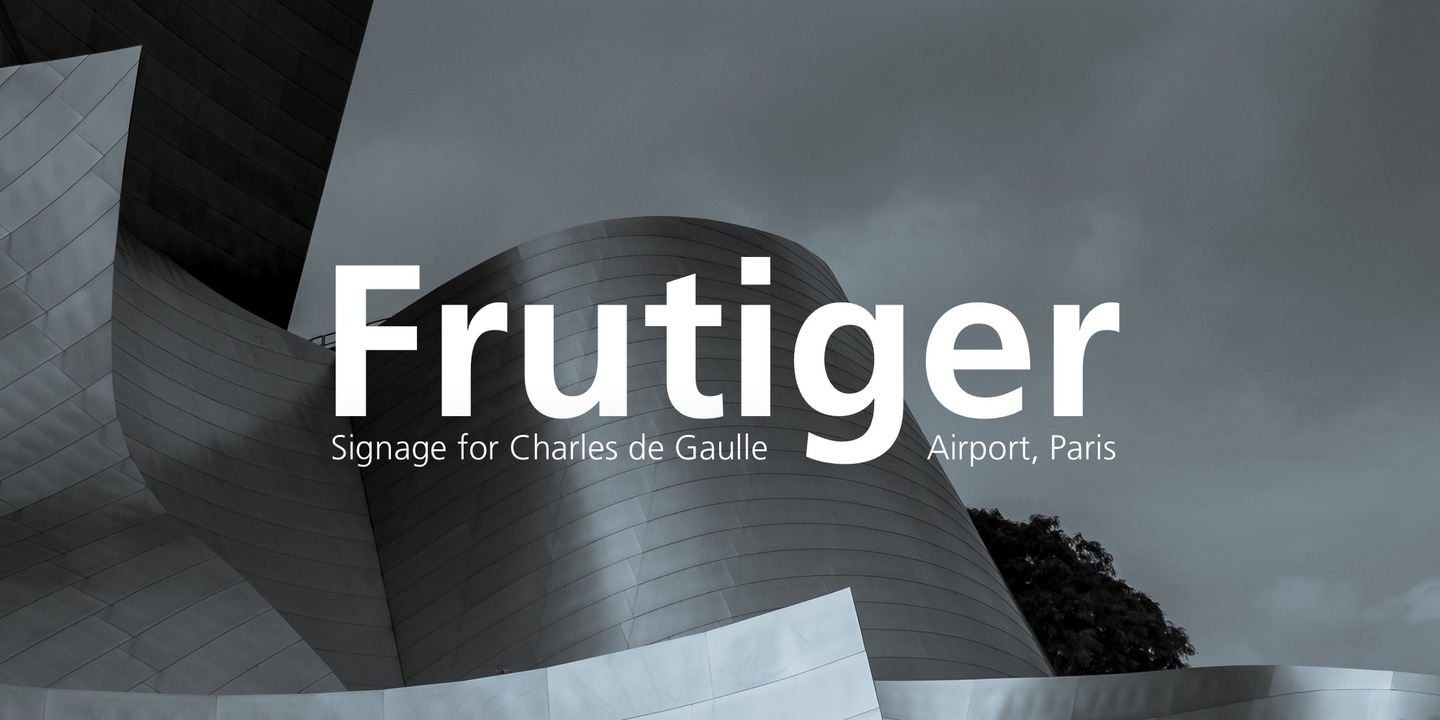
Frutiger Font is perfect for wayfinding systems, airport signage, public transportation graphics, corporate identity programs, international institutions, and universal design applications. Its exceptional character makes it ideal for government agencies, healthcare facilities, educational institutions, multinational corporations, and any application requiring clear, accessible typography that ensures optimal legibility across diverse audiences and challenging viewing conditions.
Frutiger Font is exciting because it represents the pinnacle of humanist sans-serif design, masterfully balancing geometric clarity with organic warmth to create unparalleled legibility and universal appeal. Its scientifically optimized letterforms and carefully calibrated proportions result from extensive research into human perception and reading comprehension, making it perfect for organizations prioritizing accessibility and clear communication. The font's legendary design excellence has made it a global standard for public information systems.
Frutiger Font family includes comprehensive weight variations typically featuring Light, Regular, Medium, Bold, and Black options with corresponding italic styles and condensed variants. The family often incorporates extensive multilingual support, international symbols, and specialized characters designed for global wayfinding applications, providing designers with complete tools for creating universally accessible typographic communication systems.
When selecting universal typography solutions, Frutiger Font Free Download represents an exceptional choice for public communication projects. This legendary typeface brings instant credibility and accessibility to any application, making it indispensable for public institutions, international organizations, and brands requiring maximum clarity and inclusivity. Whether you're developing wayfinding systems, creating public information materials, or designing accessible digital interfaces, Frutiger Font provides the legendary legibility and universal appeal essential for effective communication across all demographics in today's globally connected world.